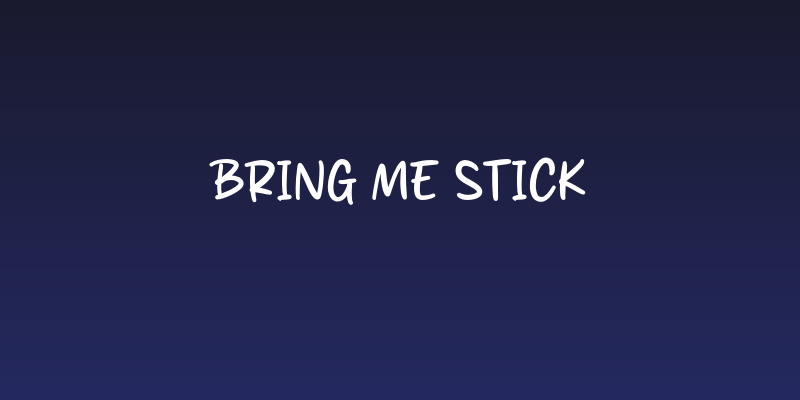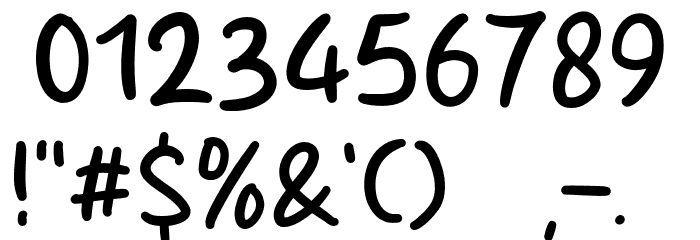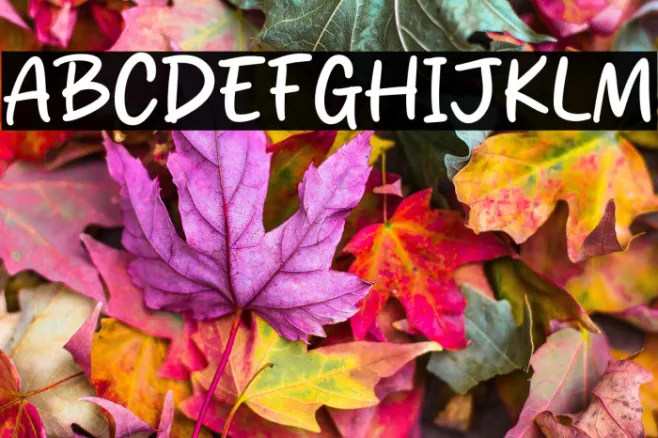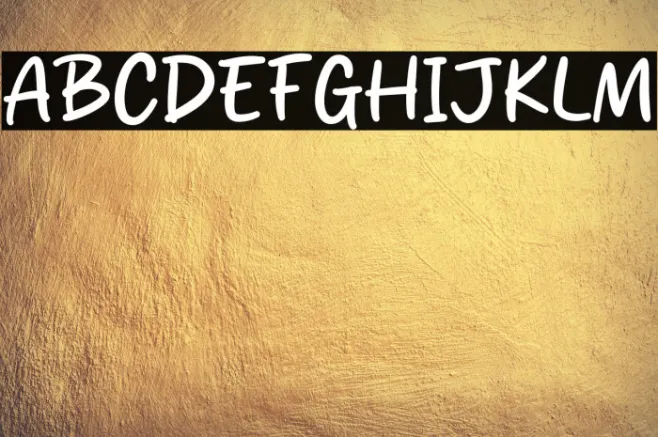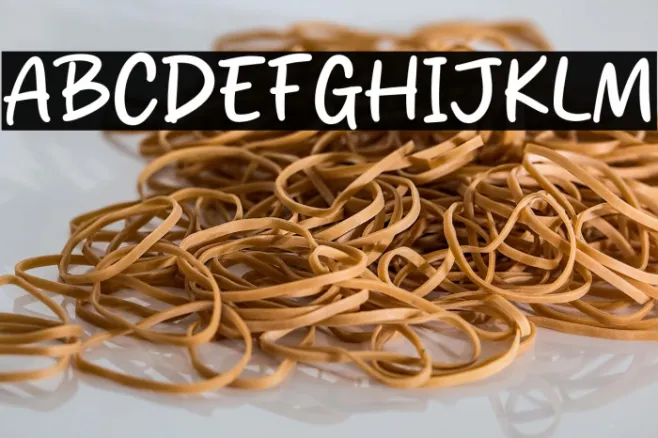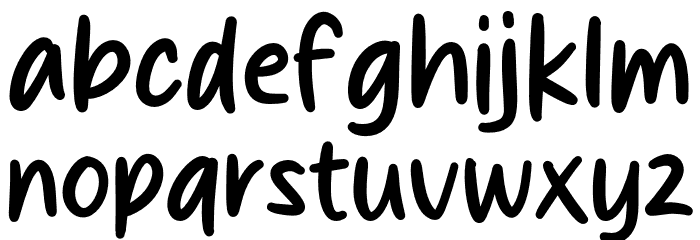
Bring Me Stick Font
Bring Me Stick Description
This font exudes a playful and casual handwritten style, characterized by its smooth, rounded edges and slightly irregular letterforms. The uppercase and lowercase letters maintain a consistent flow, giving it a friendly and approachable appearance. The numerals and special characters are crafted with the same whimsical touch, ensuring uniformity across the typeface. Its informal nature makes it ideal for projects that require a personal or relaxed tone. The strokes are moderately thick, providing good readability while maintaining a light-hearted aesthetic.
| Use Case | Headlines, Informal text, Branding |
| Proposed Projects | Ideal for greeting cards, children's books, casual branding, and social media graphics. |